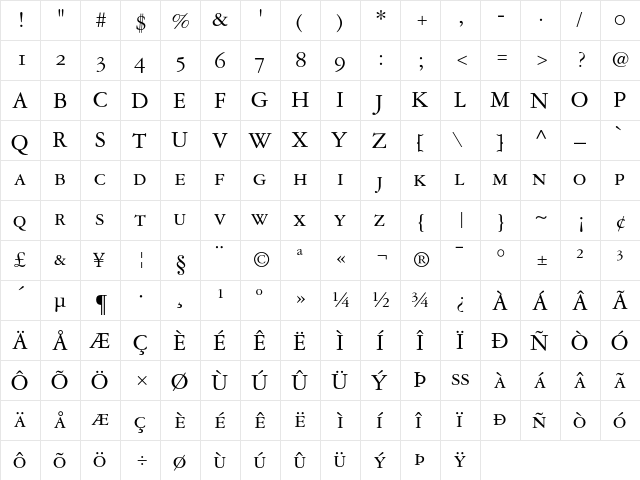
Garamond 3 Small Caps & Old Style Figures
Design Context for Garamond 3 Typeface
Garamond 3 takes a measured approach to typography — its balanced proportions and neutral character make it a reliable workhorse for both digital and print work.